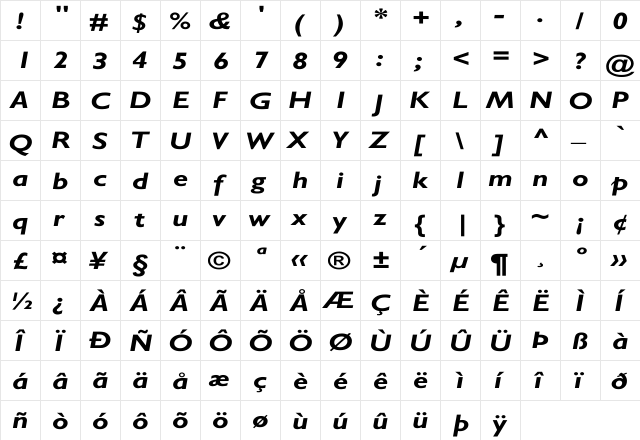
GillSans-BoldItalic Wd Regular
Design Context for GillSans-BoldItalic Wd Typeface
GillSans-BoldItalic Wd is a composed and adaptable typeface that performs quietly and consistently across a wide range of design contexts. The dynamic lean of this cut emphasises speed and emphasis in any layout. The heavy weight commands attention and anchors typographic hierarchies.
Pro Tip: Try GillSans-BoldItalic Wd for annotation and caption copy alongside an upright companion — the contrast in angle creates a dynamic but ordered typographic system.